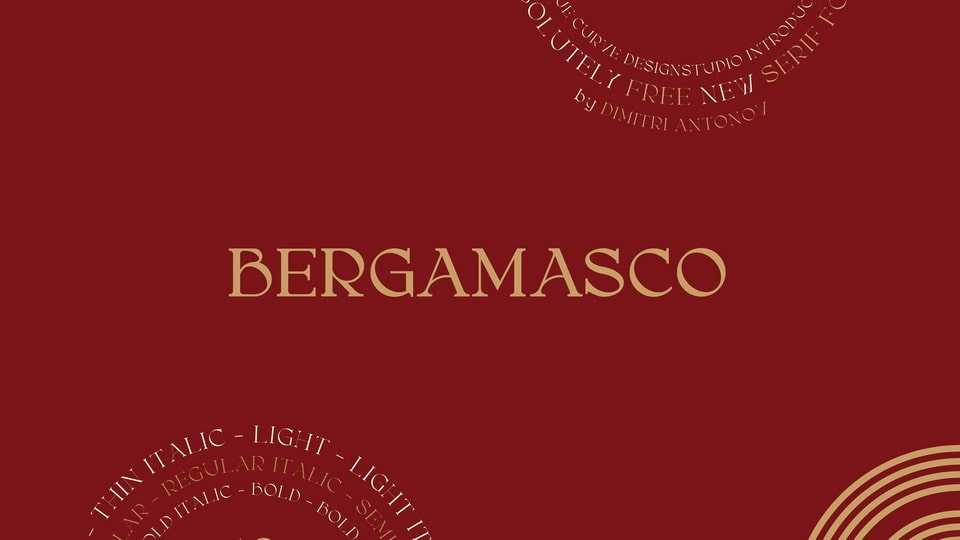
Download Bergamasco font, a stunningly crisp display serif typeface with high contrast and sharp detail. Perfect for editorial and large-size titling use, branding and posters.
Designer: Dimitri Antonov